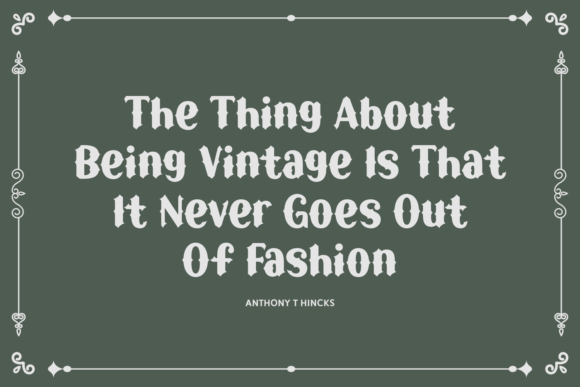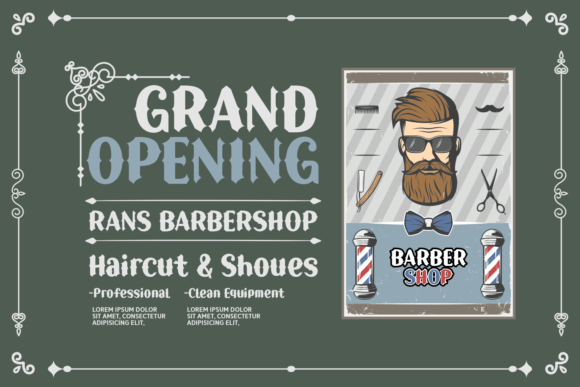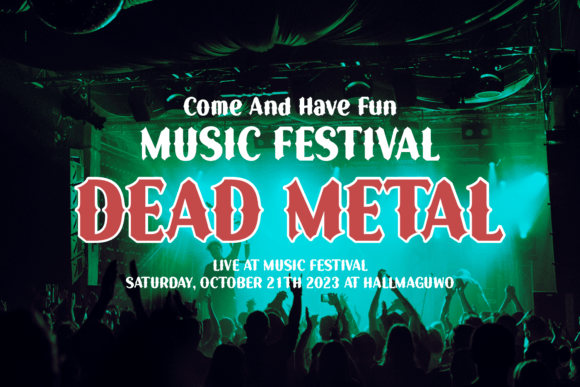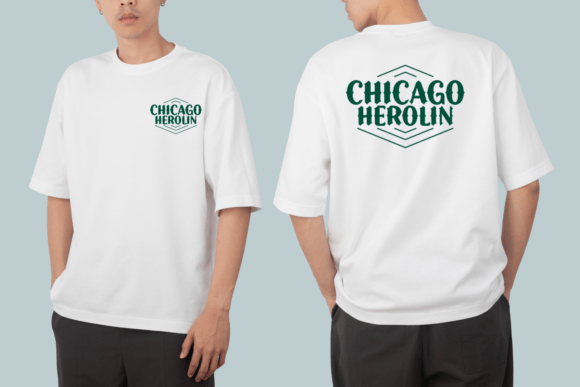
Dream Herolin Font: Elevate Your Typography Designs with a Unique Blackletter Font
Are you tired of using the same old fonts in your designs? Look no further than the Dream Herolin Font, a unique and charming blackletter font that’s sure to add a striking look to your typography designs. With its bold and eye-catching style, this outstanding typeface is perfect for taking any project to the highest level. In this article, we’ll explore the features and benefits of the Dream Herolin Font, and show you how to make the most of this incredible font in your designs.
What is Dream Herolin Font?
Dream Herolin Font is a blackletter font that’s characterized by its dramatic and ornate lettering style. Blackletter fonts are known for their bold, Gothic-inspired look, and Dream Herolin Font is no exception. With its intricate and detailed letterforms, this font is sure to add a touch of elegance and sophistication to any design.
Key Features of Dream Herolin Font
• Unique and charming design: Dream Herolin Font features a one-of-a-kind design that’s sure to grab attention. Its bold and eye-catching style makes it perfect for headlines, titles, and other typography elements.
• Highly versatile: This font is perfect for a wide range of design projects, including posters, advertisements, logos, t-shirts, headers, titles, and more.
• Scalable: This font is highly scalable, making it perfect for use in a variety of design applications, from small icons to large billboards.
Benefits of Using Dream Herolin Font
So why should you choose Dream Herolin Font for your next design project? Here are just a few benefits of using this incredible font:
• Adds a touch of elegance: Dream Herolin Font’s bold and ornate lettering style adds a touch of elegance and sophistication to any design.
• Grabs attention: The unique and charming design of this font is sure to grab attention and make your designs stand out.
• Perfect for headlines and titles: Dream Herolin Font is perfect for use in headlines and titles, where its bold and eye-catching style can really make an impact.
• Versatile: This font can be used in a wide range of design applications, from posters and advertisements to logos and t-shirts.
How to Use Dream Herolin Font in Your Designs
Using Dream Herolin Font in your designs is easy. Here are a few tips to get you started:
• Pair it with a simple font: Dream Herolin Font is a bold and eye-catching font, so it’s best to pair it with a simple font for body text.
• Use it for headlines and titles: This font is perfect for use in headlines and titles, where its bold and eye-catching style can really make an impact.
• Experiment with different colors: Dream Herolin Font looks great in a variety of colors, so don’t be afraid to experiment and find the perfect color for your design.
• Use it in combination with other design elements: This font can be used in combination with other design elements, such as images and graphics, to create a unique and eye-catching design.
Dream Herolin Font is a unique and charming blackletter font that’s sure to add a striking look to your typography designs. With its bold and eye-catching style, this outstanding typeface is perfect for taking any project to the highest level. Whether you’re a designer, craft, or simply someone who loves typography, Dream Herolin Font is a must-have font that’s sure to inspire your creativity.